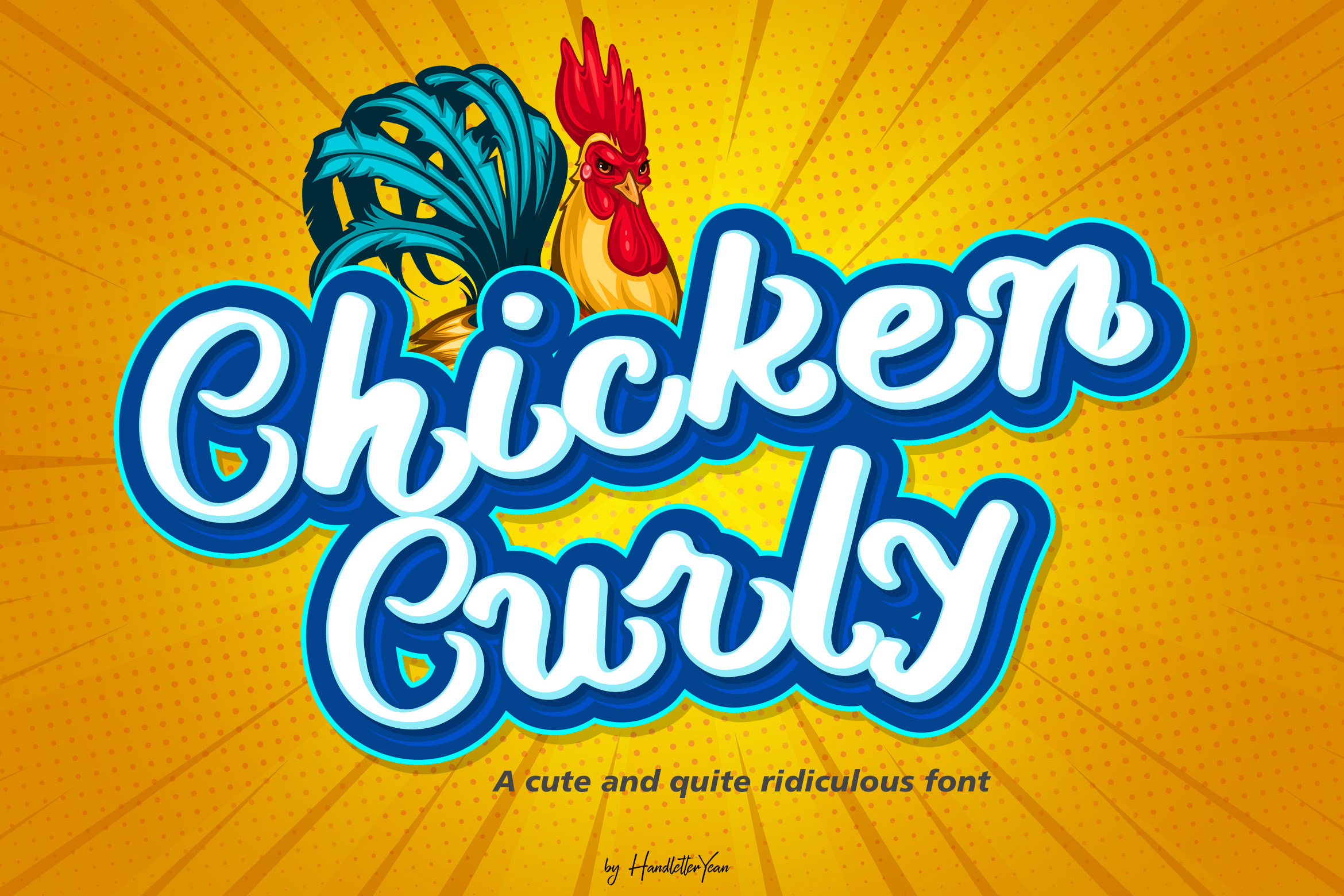
Chicken Curly - display font
Chicken Curly is a cute and funny display font with a hilarious feel. It celebrates all the good things in life. It comes in 4 distinct versions, bold, bold-italic, italic and regular!